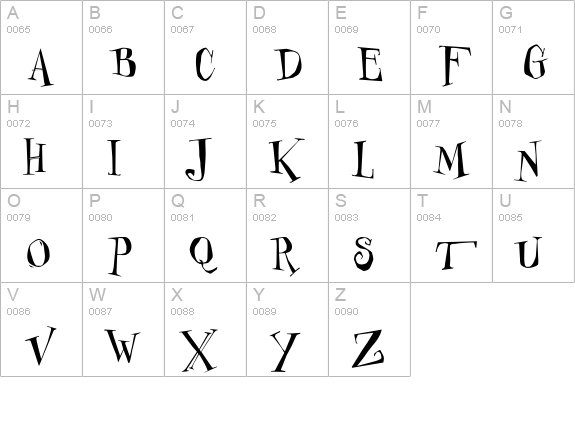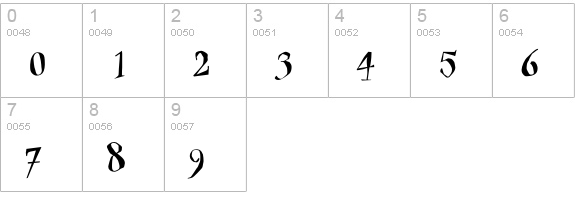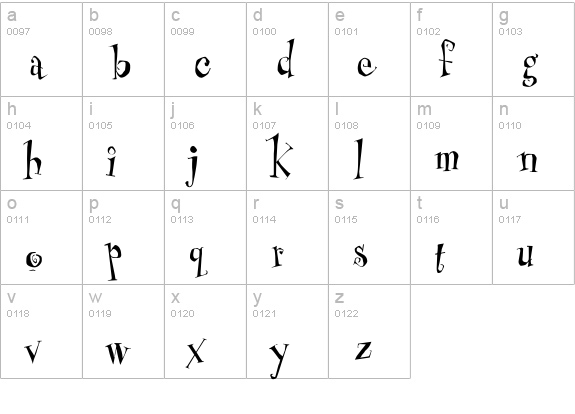
MisterFrisky Font Details
Introducing MisterFrisky font, a charming and whimsical typeface that exudes playfulness and creativity. With its quirky curves and unique letterforms, MisterFrisky is perfect for adding a touch of fun to any design project. This delightful font is sure to capture attention and bring a smile to your audience. The best part? MisterFrisky is completely free to download at FontsMarket.com. That's right, you can easily access this delightful font and start using it in your projects right away. Whether you're designing invitations, posters, or social media graphics, MisterFrisky will add a touch of personality and charm that sets your work apart. Embrace the playful spirit of MisterFrisky font and let your creativity shine!